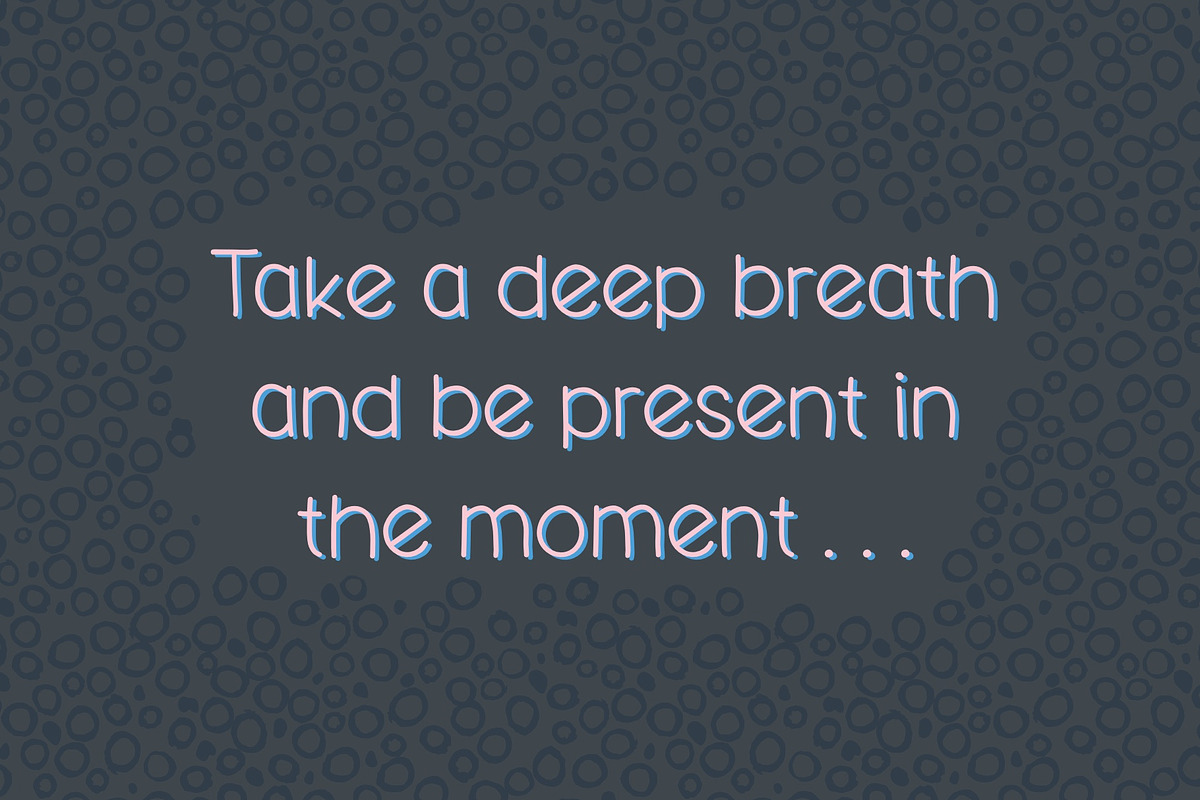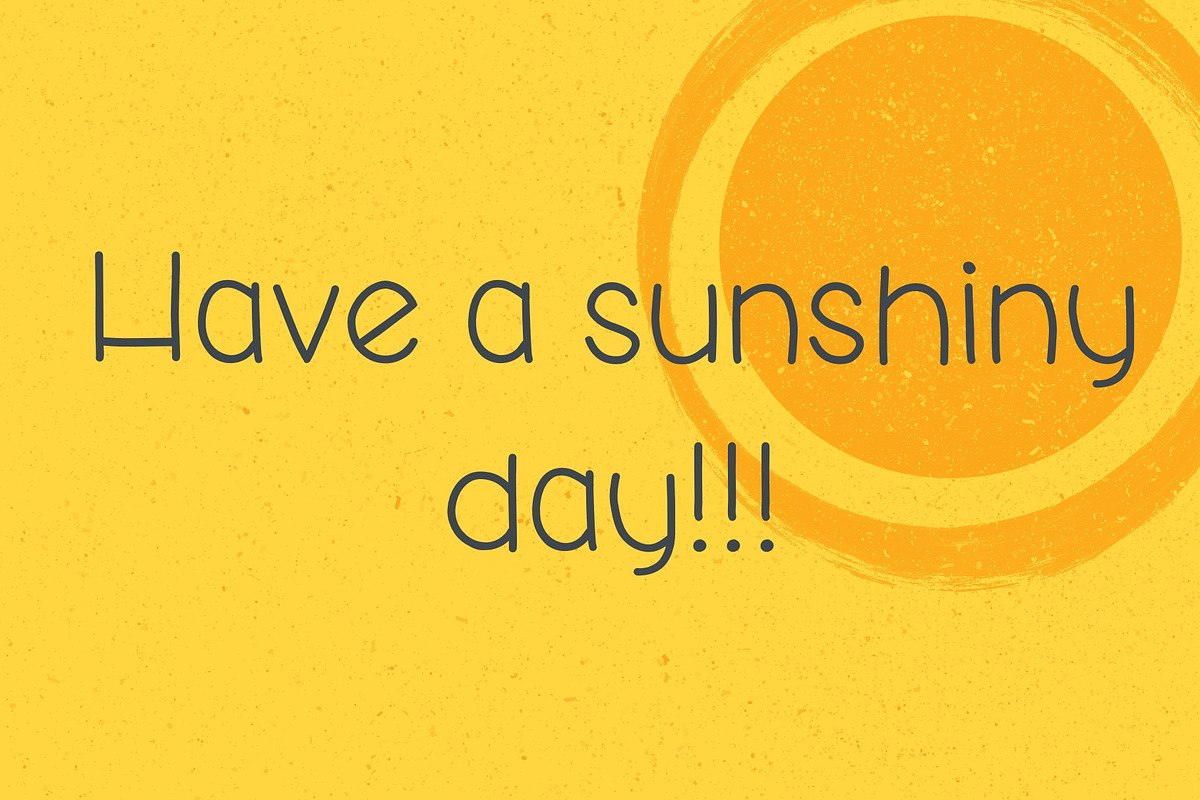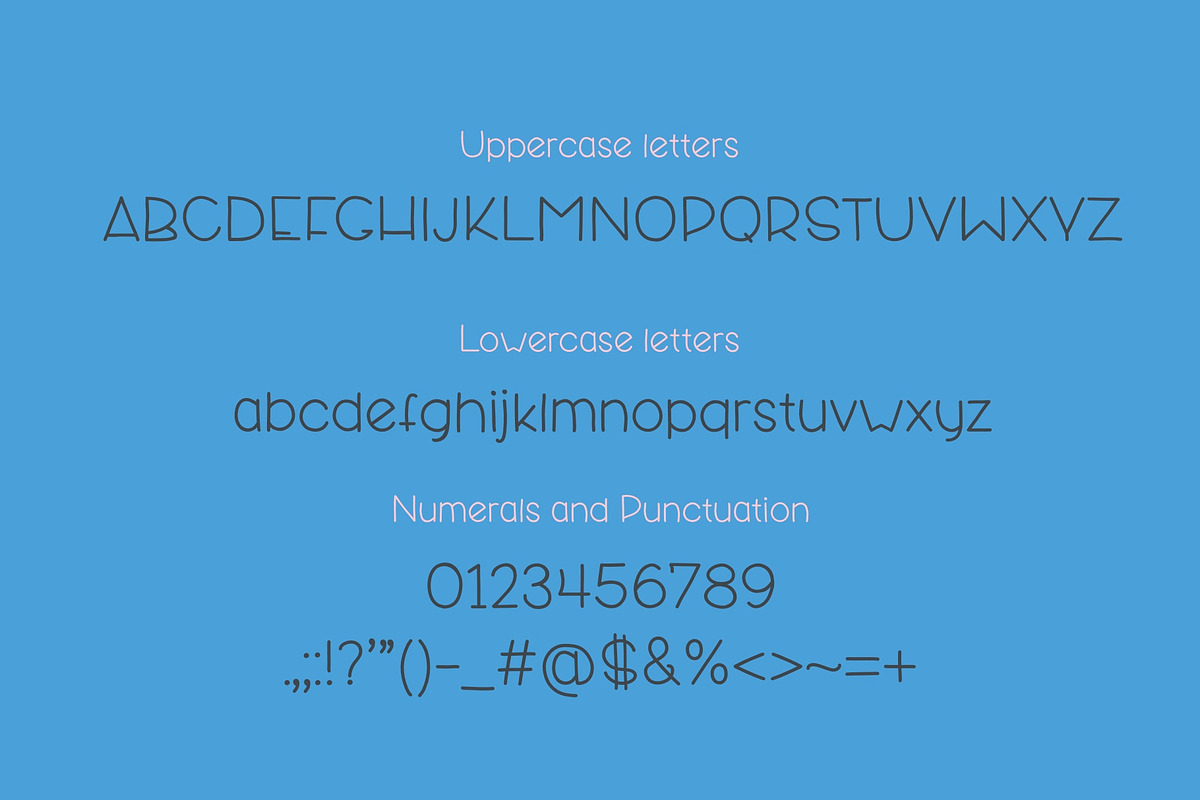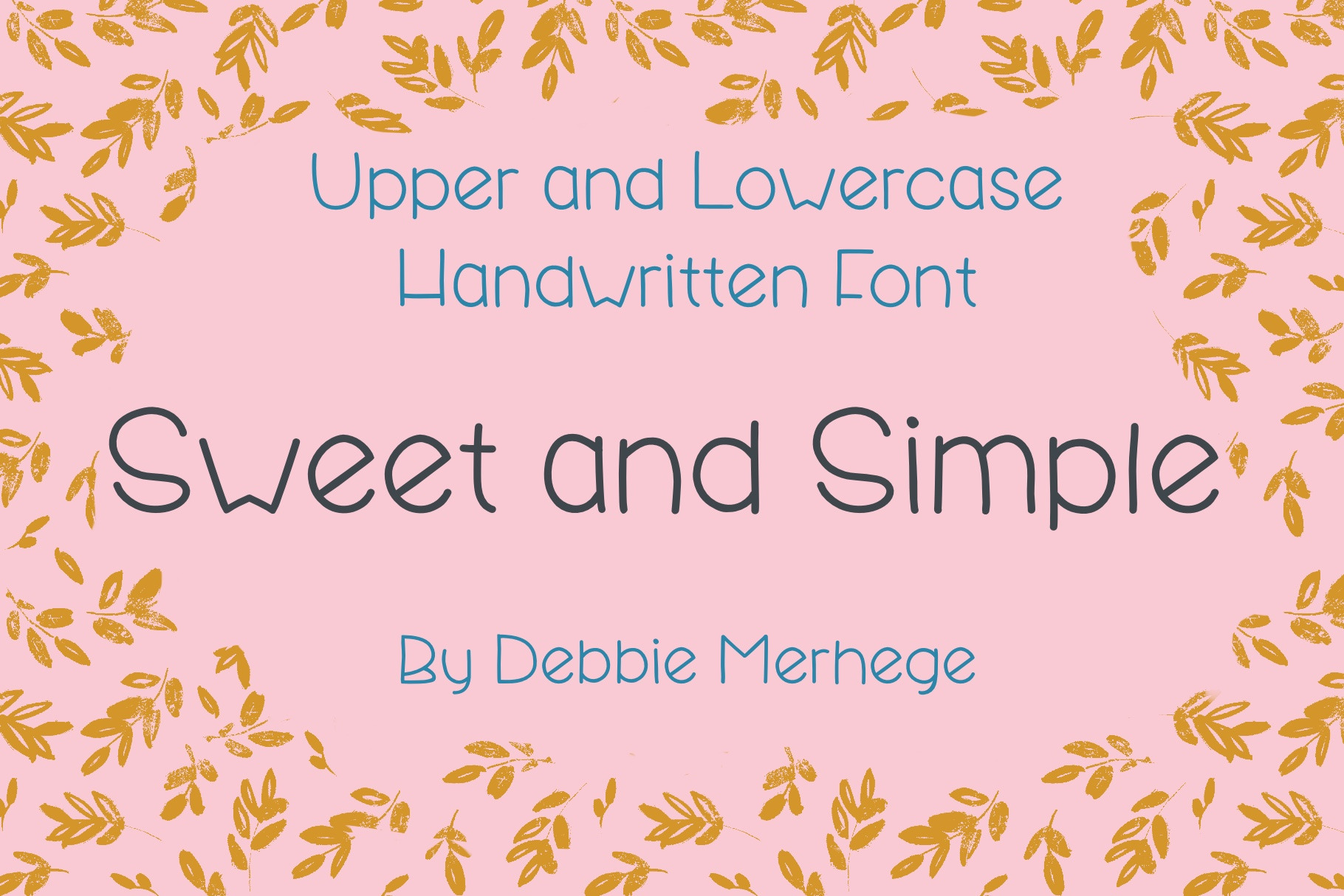
Sweet and Simple - handwritten font
Sweet and Simple is a fun, cute handwritten font. It’s perfect to add a unique style to your cards, artwork and more.
This is an upper and lowercase font with characters, punctation and symbols.
Current language support: English